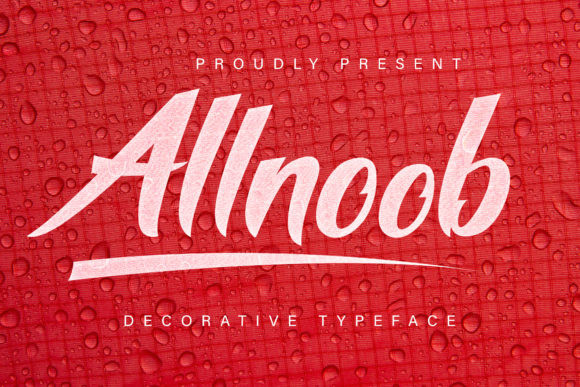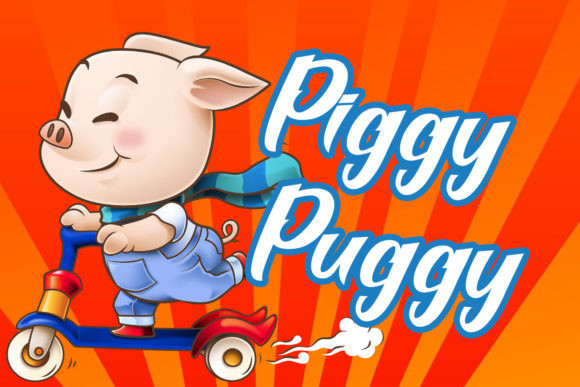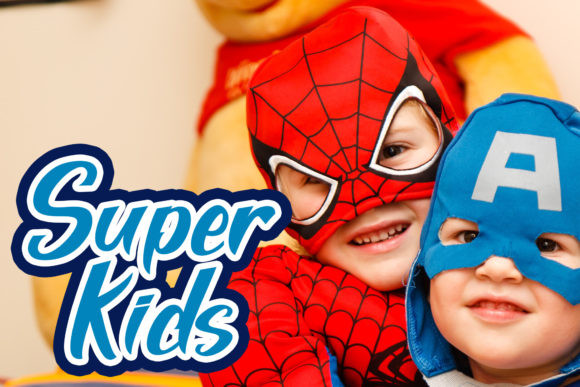
Allnoob Font
Allnoob is an equally elegant and authentic script that radiates charm. It’s the perfect font for adding a personal touch to your next design idea.